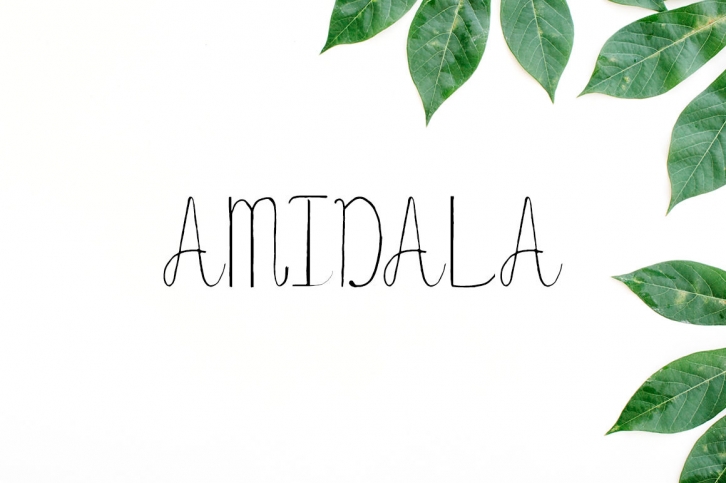
Amidala Script Font Download
Amidala is a cool handwritten script font containing uppercase, lowercase characters, numerals, punctuation and alternatives. This font can always be the right choice for a lot of creative works like handwritten quotes, logo projects, signature, album cover, merchandise, social media posts, displays, headers, invitations, save the dates, weddings, titles, product packaging, etc.
Included With Amidala:
• Font Weight: Regular
• Uppercase Multilingual Letters
• Lowercase Multilingual Letters
• Numbers & Punctuation
• Alternative